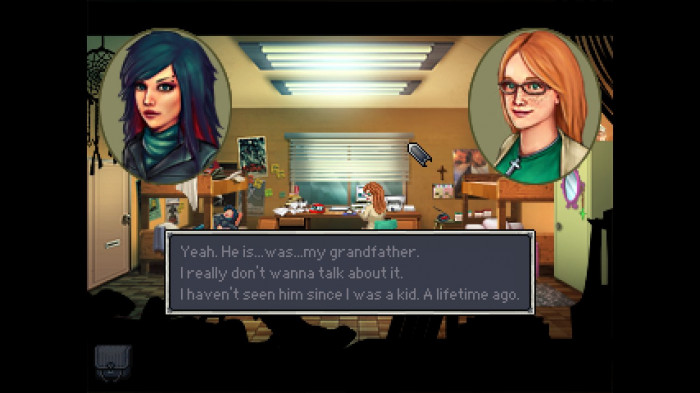
• Recreation of the main font used for the Kathy Rain games. Almost all of the glyphs are either taken directly from the game or made by extending the original principles (e.g. some accented characters). I tried to leave the original spacing, too.